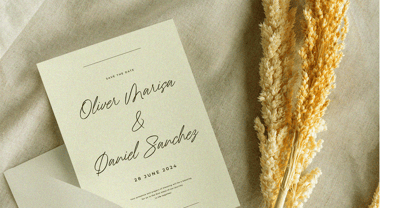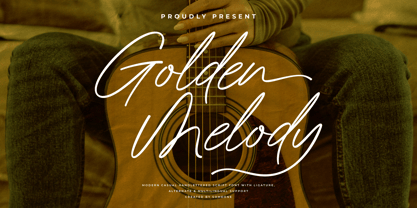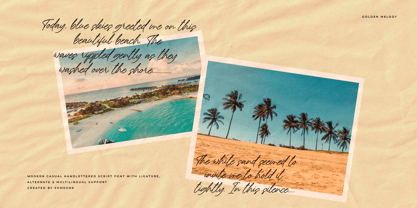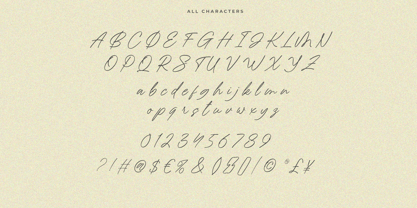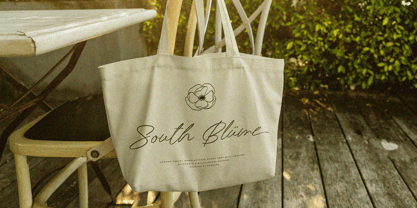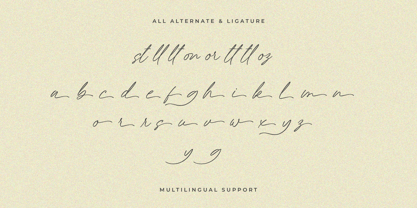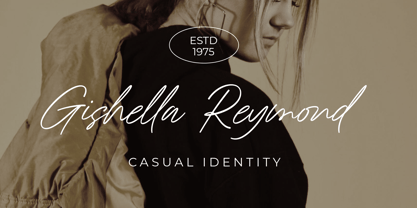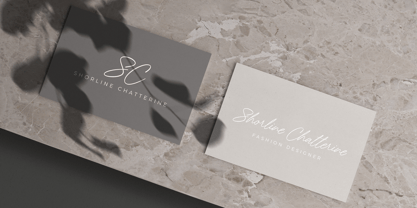
Golden Melody
The Golden Melody Font Family was designed by Muhammad Mujibulloh and published by MJB Letters. Golden Melody contains 1 styles. More about this family
Golden Melody is a script or calligraphy font that showcases beauty and elegance in every letterstroke. Meticulously designed, it seamlessly blends classic elements with a modern touch, creating a captivating and enchanting appearance.
Golden Melody combines classical style with a modern touch, resulting in a timeless and versatile font. Its fine strokes and attention to detail create a luxurious and classy look. The font offers alternate characters and ligatures, providing flexibility and adding an elegant flow to the design.
Ideal for wedding invitations, Golden Melody adds a romantic and luxurious touch to every detail. It suits logo designs for brands seeking an exclusive and stylish identity. Perfect for inspirational quotes, it brings a strong and artistic impact to motivational messages. Additionally, the font elevates the aesthetic of luxury product packaging, labels, and promotional materials. Golden Melody is the choice for those seeking a classic and modern design fusion.